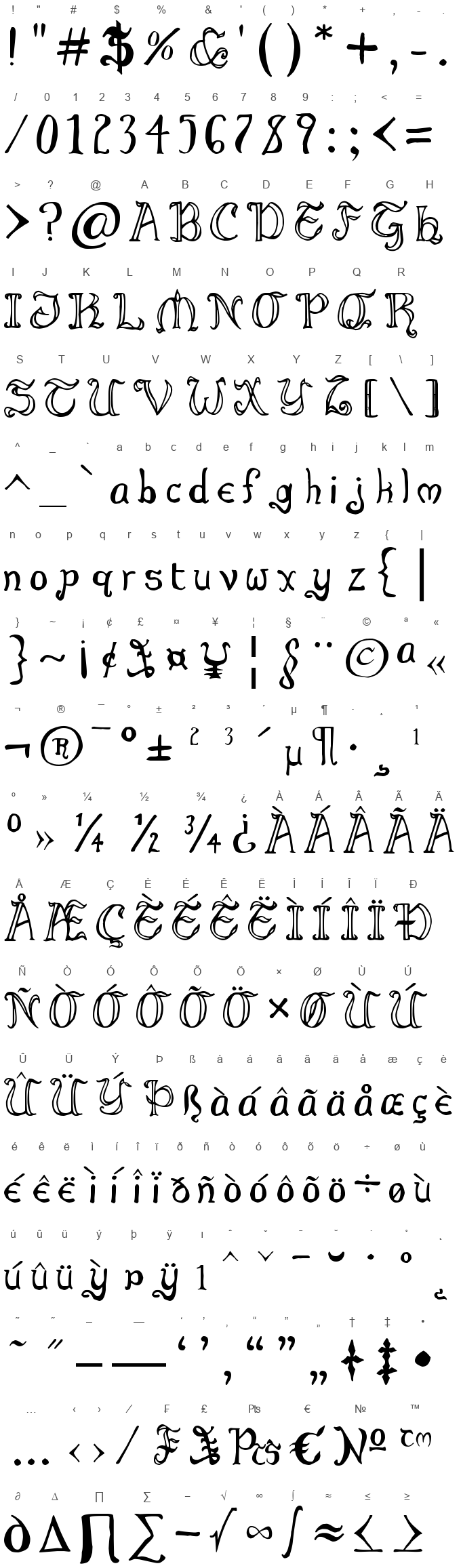
The Throrian Formal font, conceived and designed by Bill Roach, is an artistic masterpiece that vividly brings together the realms of fantasy and traditional calligraphy. This font taps into the enchanting world of old manuscripts and lore, with each letter artfully crafted to evoke a sense of ancient elegance and mystical wisdom. It's as if the font itself was dipped in the inkwell of history, capturing the essence of times when every stroke of the quill was a deliberate act of beauty and power.
Every character within the Throrian Formal set has been meticulously designed to flow into the next, creating a seamless dance of curvature and line. The font is characterized by its elaborate serifs, intricate design elements, and a balance between delicacy and theatrical flourish that commands attention. Its letters boast a mix of elongated shafts and delicate curls, reminiscent of the quills used by scribes of yore, making it particularly suited for titles, invitations, and works of fantasy and historical fiction.
Bill Roach has infused Throrian Formal with a richness and depth rarely seen in modern typefaces, offering a bridge to the past through digital design. This font doesn’t just spell out words; it tells a story, weaving a tapestry of imagination and elegance. It's perfect for those who wish to imbue their projects with a touch of otherworldly class or who aim to transport their audience to a realm where elegance and fantasy intertwine. Whether used for book covers, thematic posters, or majestic branding, Throrian Formal stands as a testament to the beauty of the written word and the enduring power of design inspired by the annals of history and fantasy.
Throrian Formal